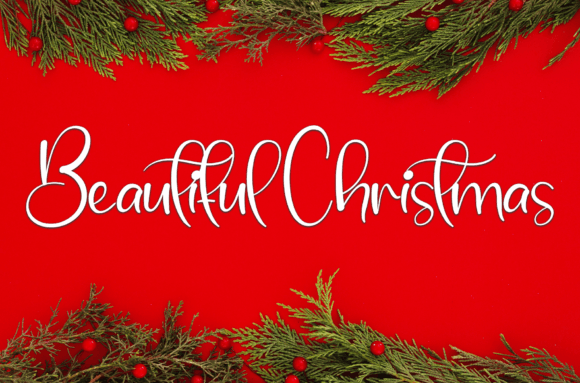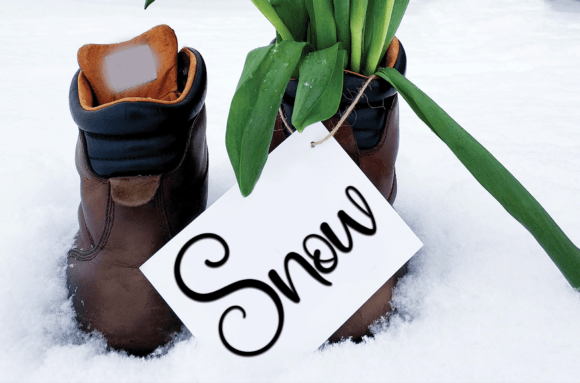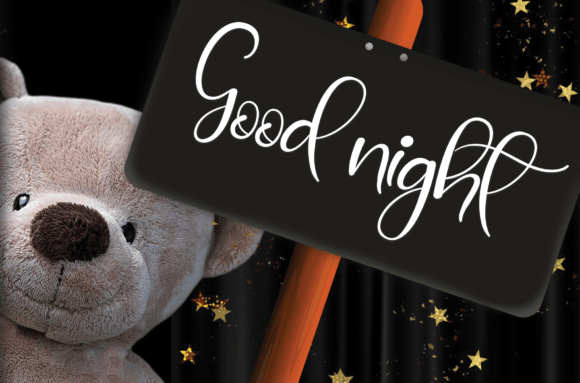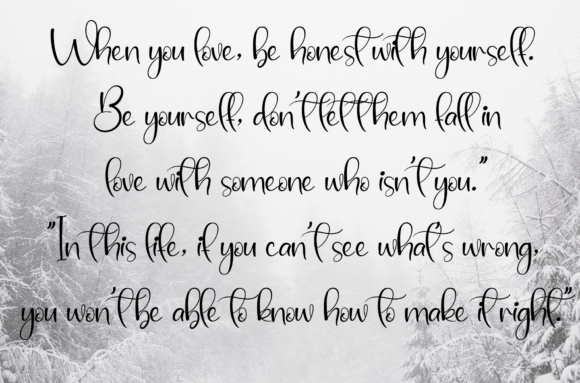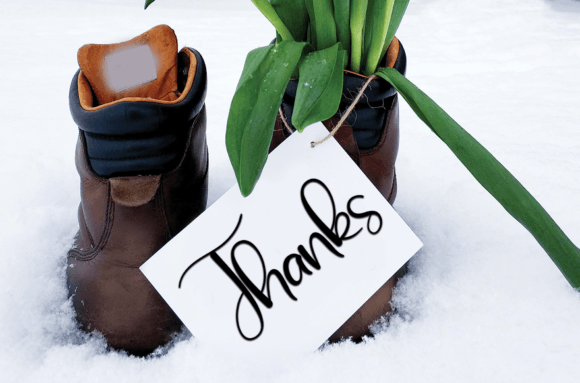
The Perfect Touch for Your Holiday Designs
As the holiday season approaches, I find myself getting lost in the magic of the moment – surrounded by twinkling lights, the warmth of the fireplace, and the sweet aroma of freshly baked cookies. It’s the perfect time to get creative and add that special something to our designs. Whether it’s a wedding invitation, a holiday card, or a festive social media post, we want our message to shine with a personal touch.
That’s where the Bakery Christmas Font comes in – a sweet and friendly handwritten font that’s sure to add a warm, relaxed feel to any design. Its versatility and charm make it a valuable addition to any designer’s toolkit, and its ideal for projects that require a touch of whimsy and personality. With the Bakery Christmas Font, you can give your designs a unique and festive look that will leave a lasting impression on your audience.
Bakery Christmas Font Key Features
- Font Family: Bakery Christmas, a festive and playful font ideal for holiday-themed designs.
- Unique Characteristics: The Bakery Christmas font features a whimsical and ornate design, with intricate details and flourishes, making it perfect for adding a touch of holiday magic to designs.
- Font Style: This font is available in a single style, with both regular and bold weights, allowing designers to add emphasis and depth to their designs.
Bakery Christmas Font Review
I recently had the chance to work with the “Bakery Christmas Font” and I must say, it’s a lovely addition to any festive design project ✨. The font is perfect for creating a warm and inviting atmosphere, especially during the holiday season. The intricate details and ornaments make it feel like a vintage, hand-crafted bakery sign, which adds a lot of character to any design.
The font includes a wide range of characters, including uppercase and lowercase letters, numbers, and even some festive symbols like snowflakes and holly leaves ✨. This makes it easy to use in a variety of contexts, from headers and titles to body text and icons.
- Perfect for festive designs and holiday-themed projects
- Includes a wide range of characters, including uppercase and lowercase letters, numbers, and symbols
- Has a unique, vintage feel that adds character to designs
- The font may be too ornate for some designs, which could make it difficult to read at smaller sizes ⚠️
- The font is not suitable for professional or corporate designs, as it has a more playful and festive feel
Overall, I think the “Bakery Christmas Font” is a great addition to any design library, especially for holiday-themed projects. While it may have some limitations, it’s a fun and unique font that can add a lot of character to your designs ✨.
The Bakery Christmas Font is ideal for:
- Christmas card designs
- Holiday menus and advertisements
- Festive social media graphics
- Christmas party invitations